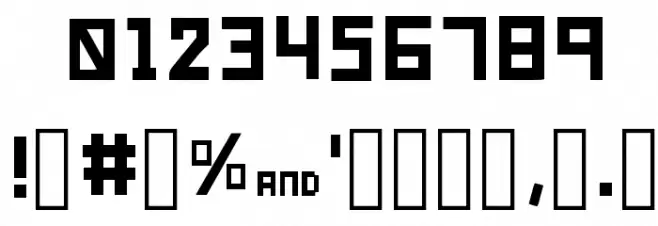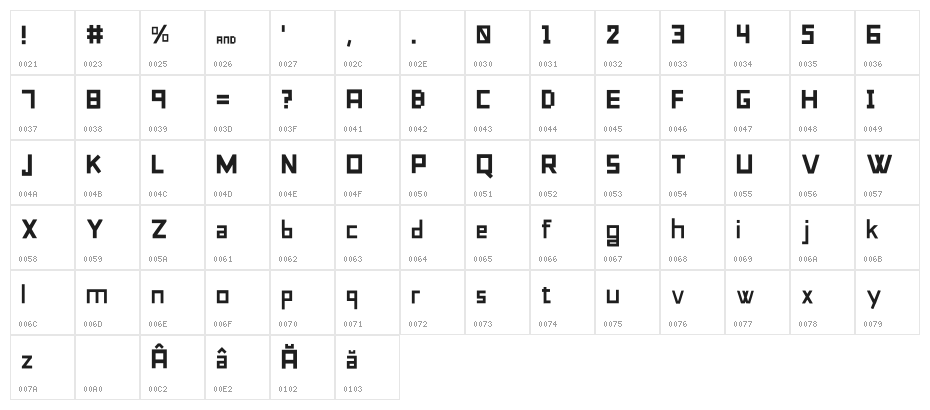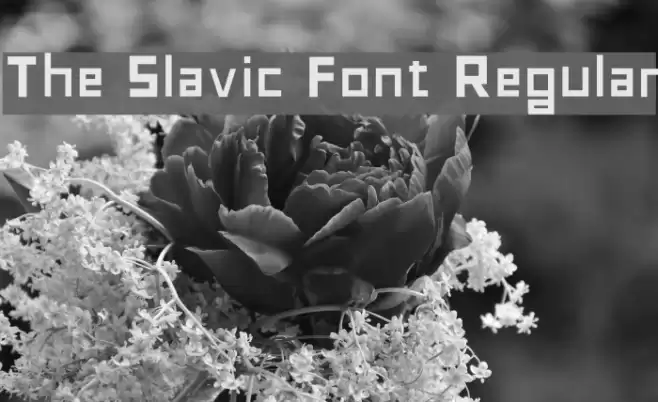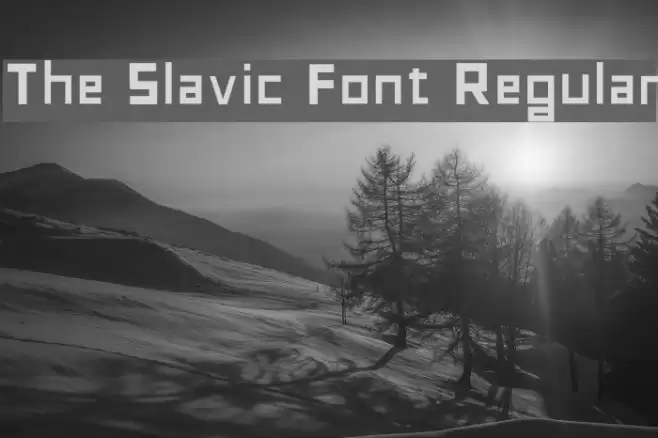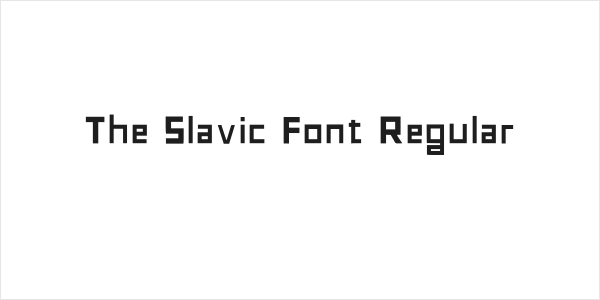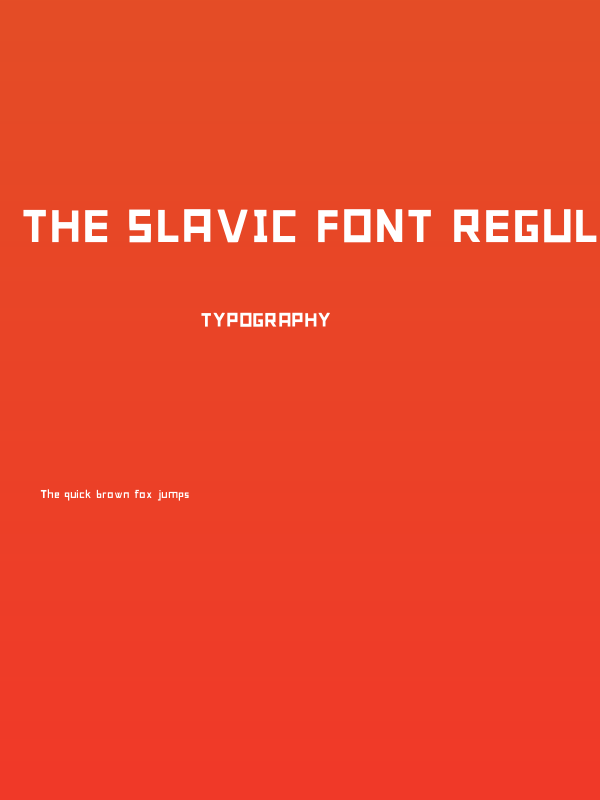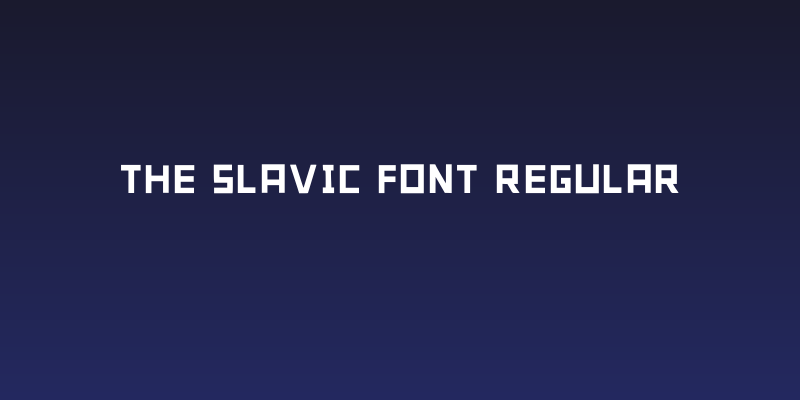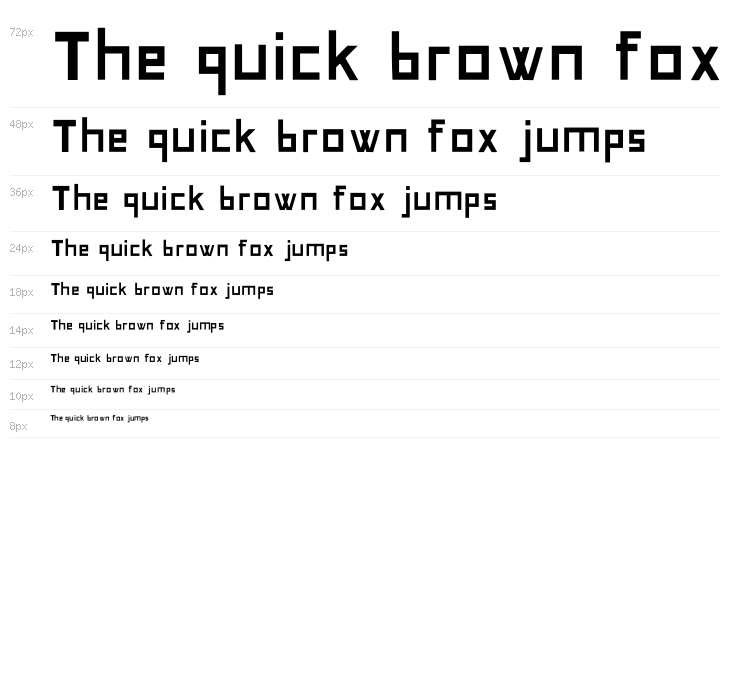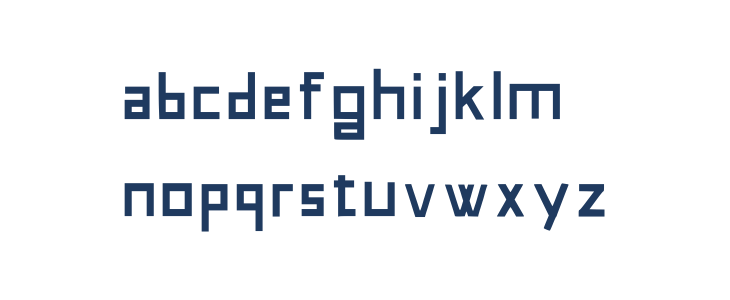
The Slavic Font Regular Font
The Slavic Font Regular Description
This font features a bold, geometric design with strong, angular lines and a distinct, modern aesthetic. The uppercase letters are characterized by their blocky, square shapes, while the lowercase letters maintain a similar structure with slightly softer edges. The numerals are consistent with the overall style, offering a uniform appearance across all characters. Special characters are designed with the same geometric precision, adding to the cohesive look. The font's unique style is reminiscent of early 20th-century constructivist design, making it suitable for projects that require a bold, impactful visual statement.